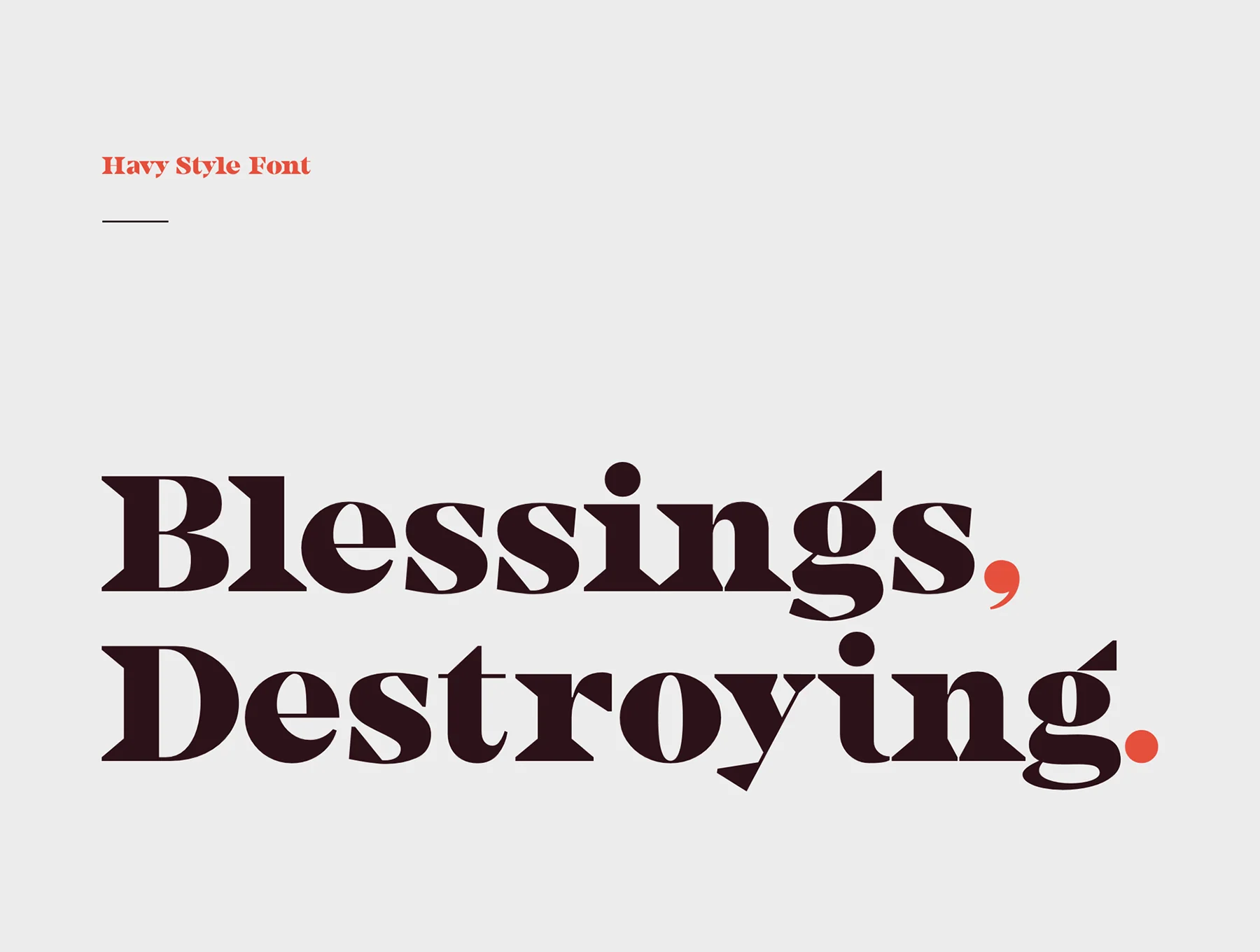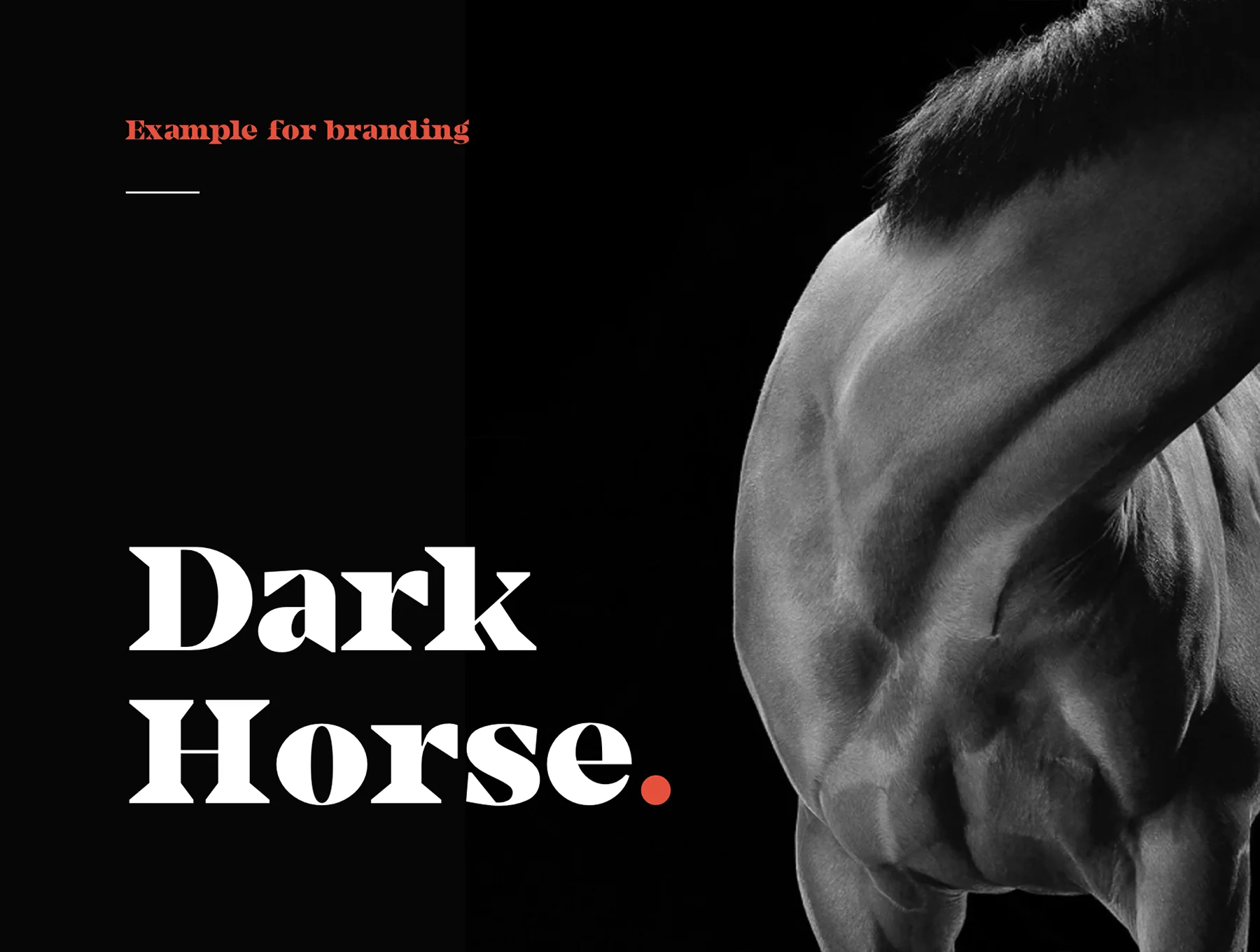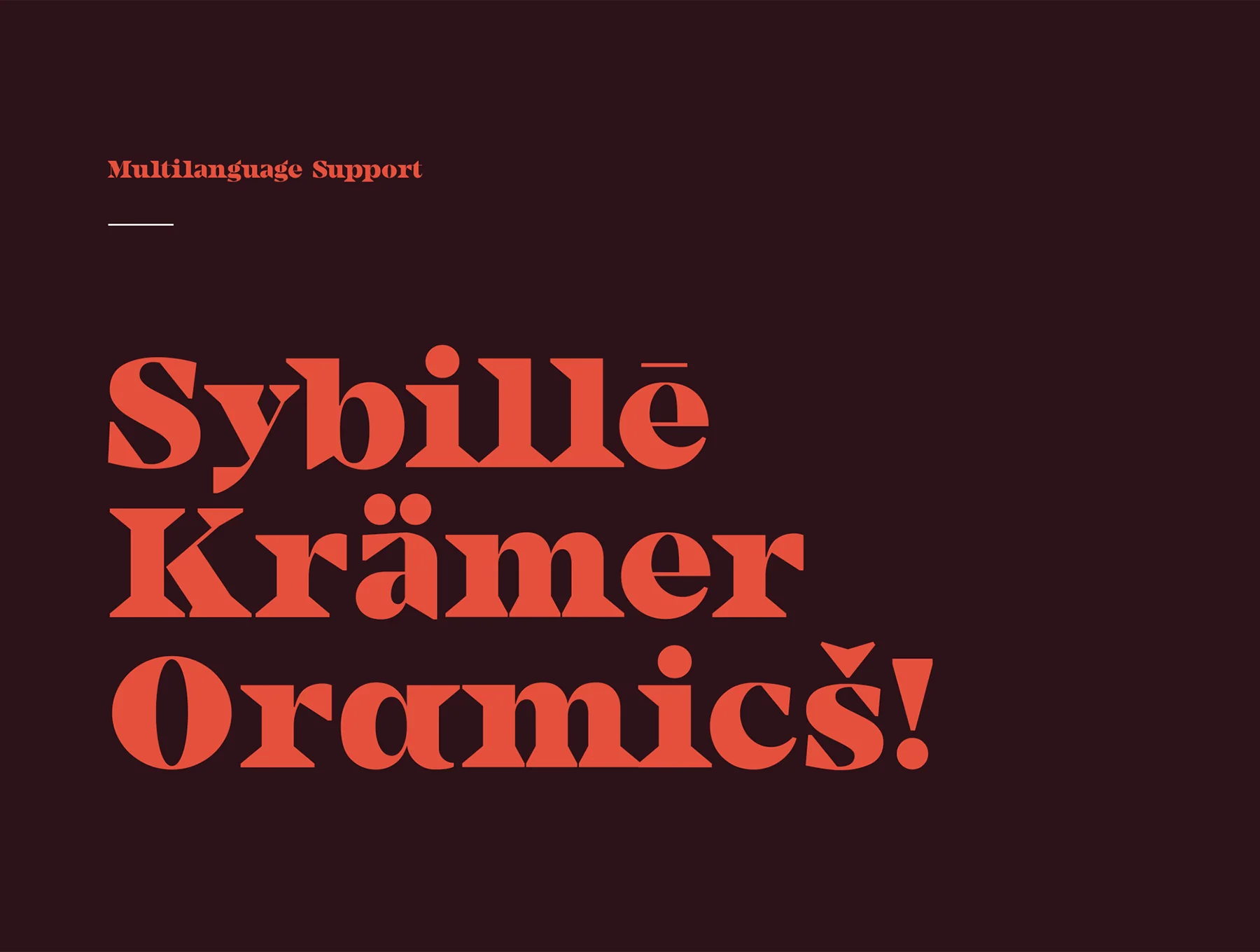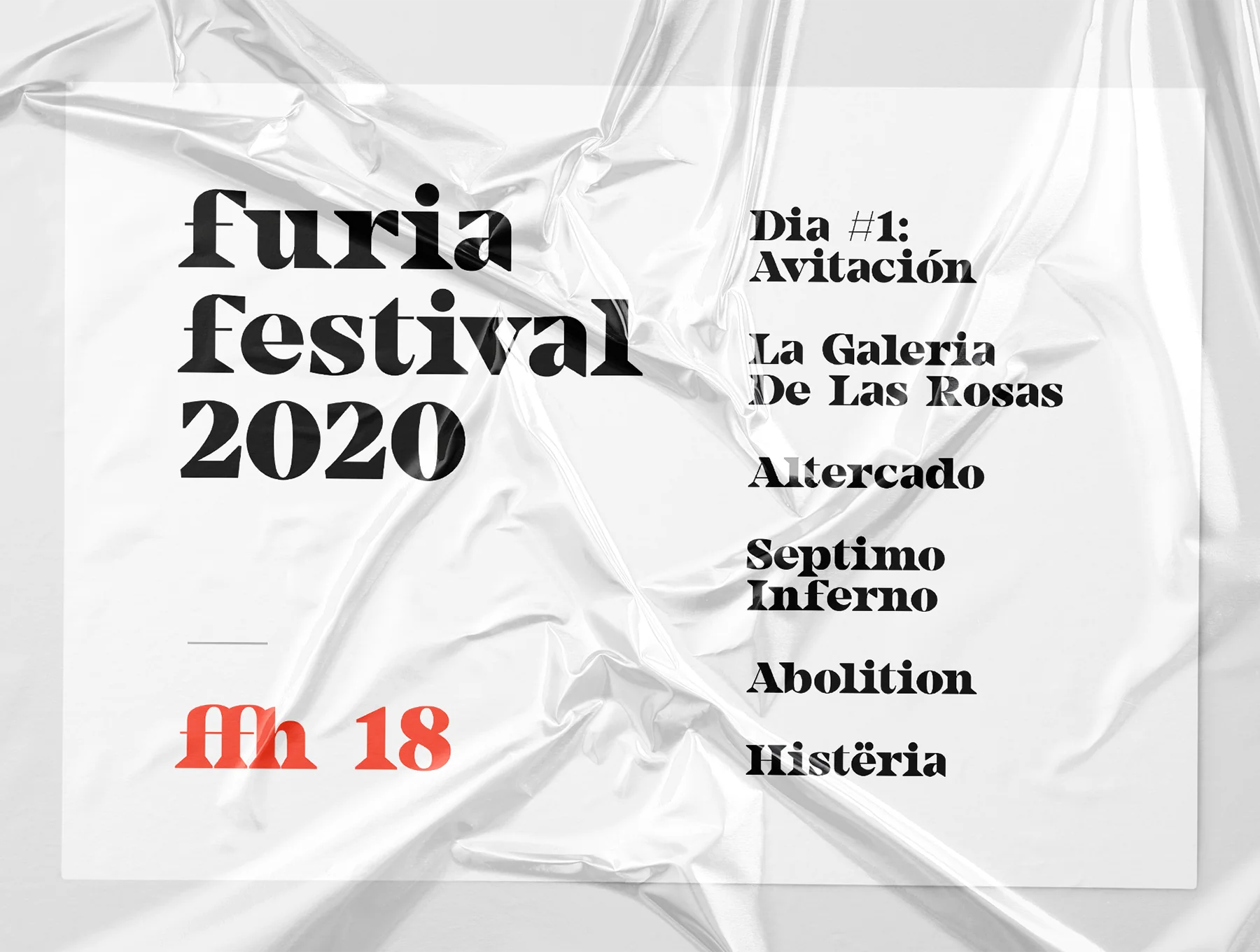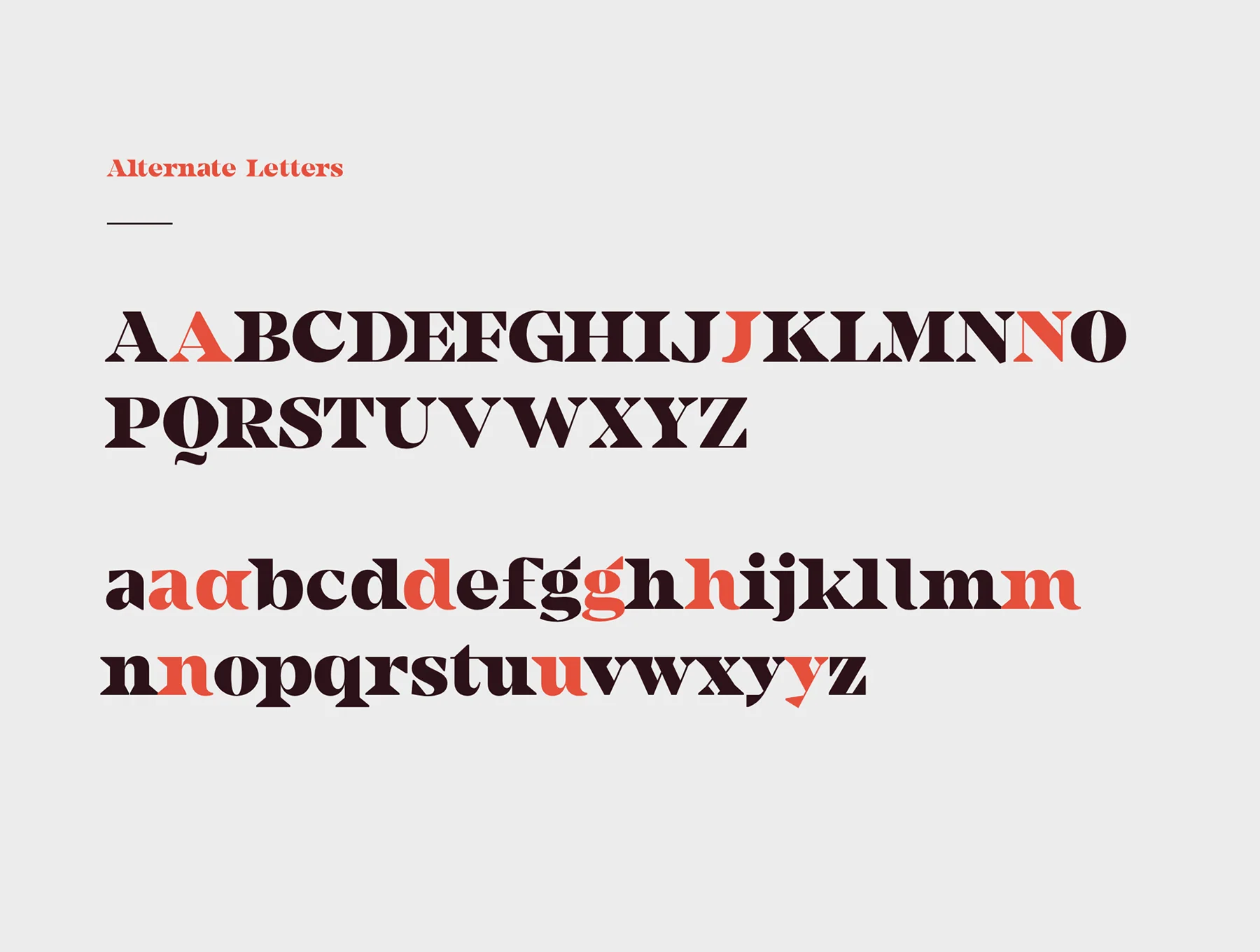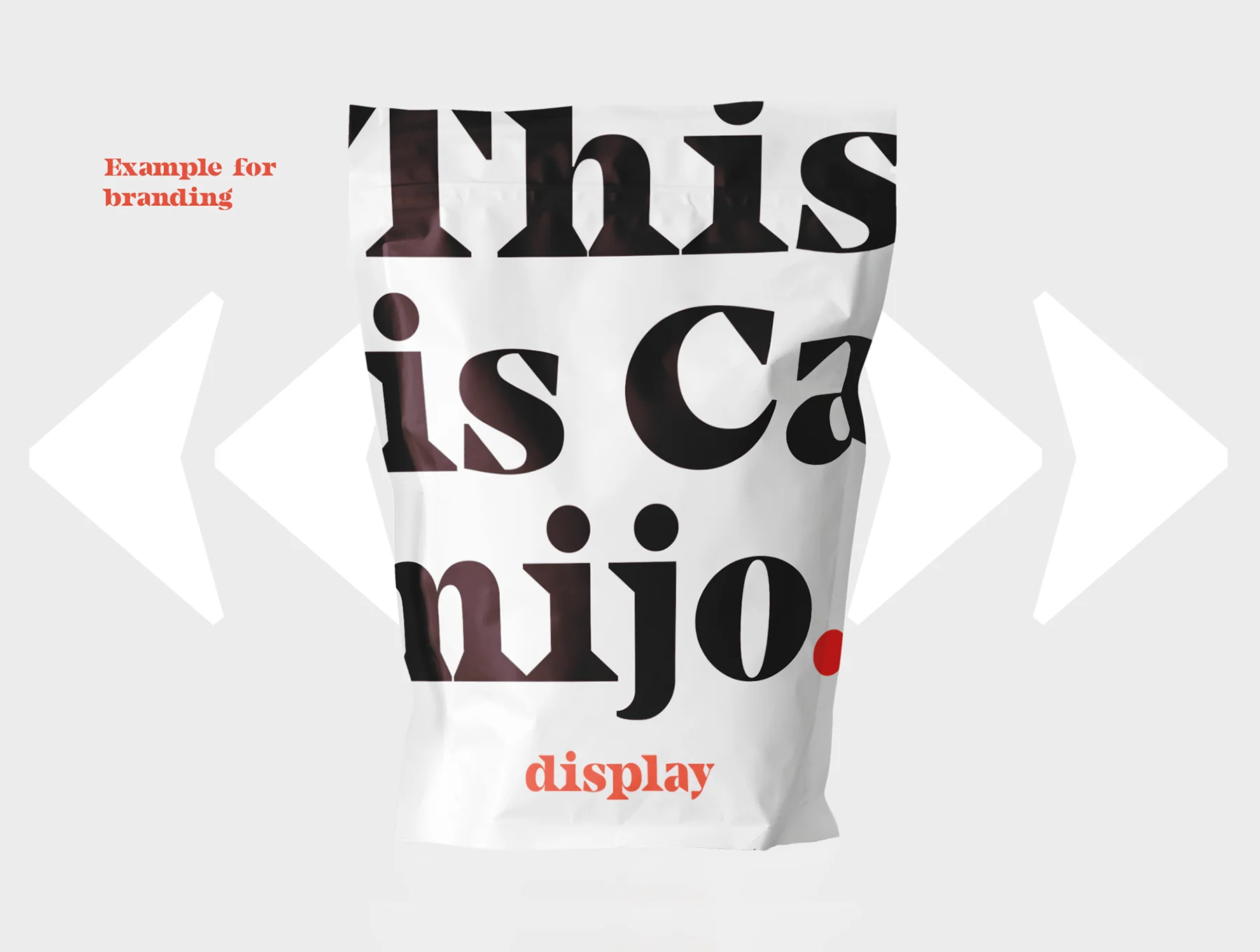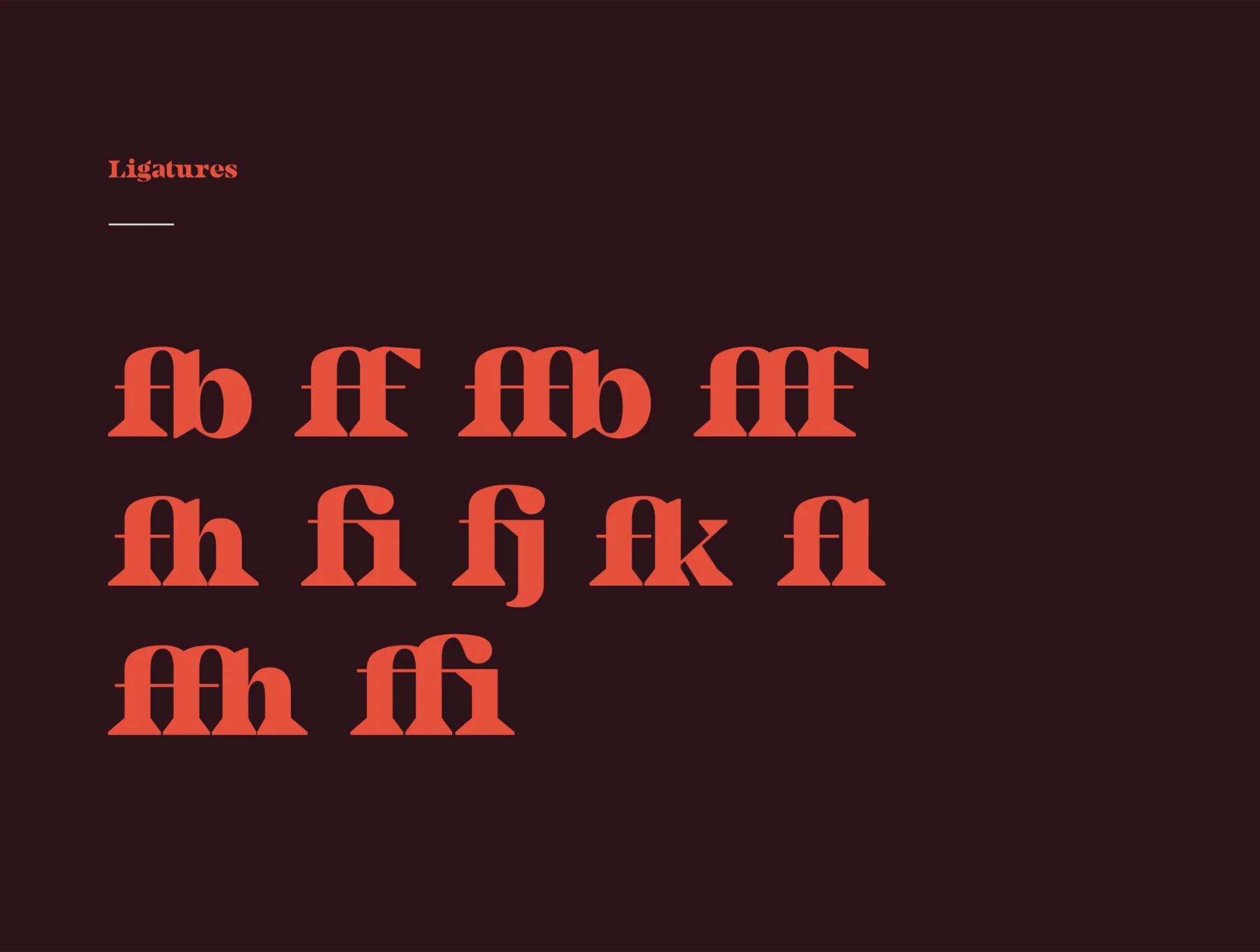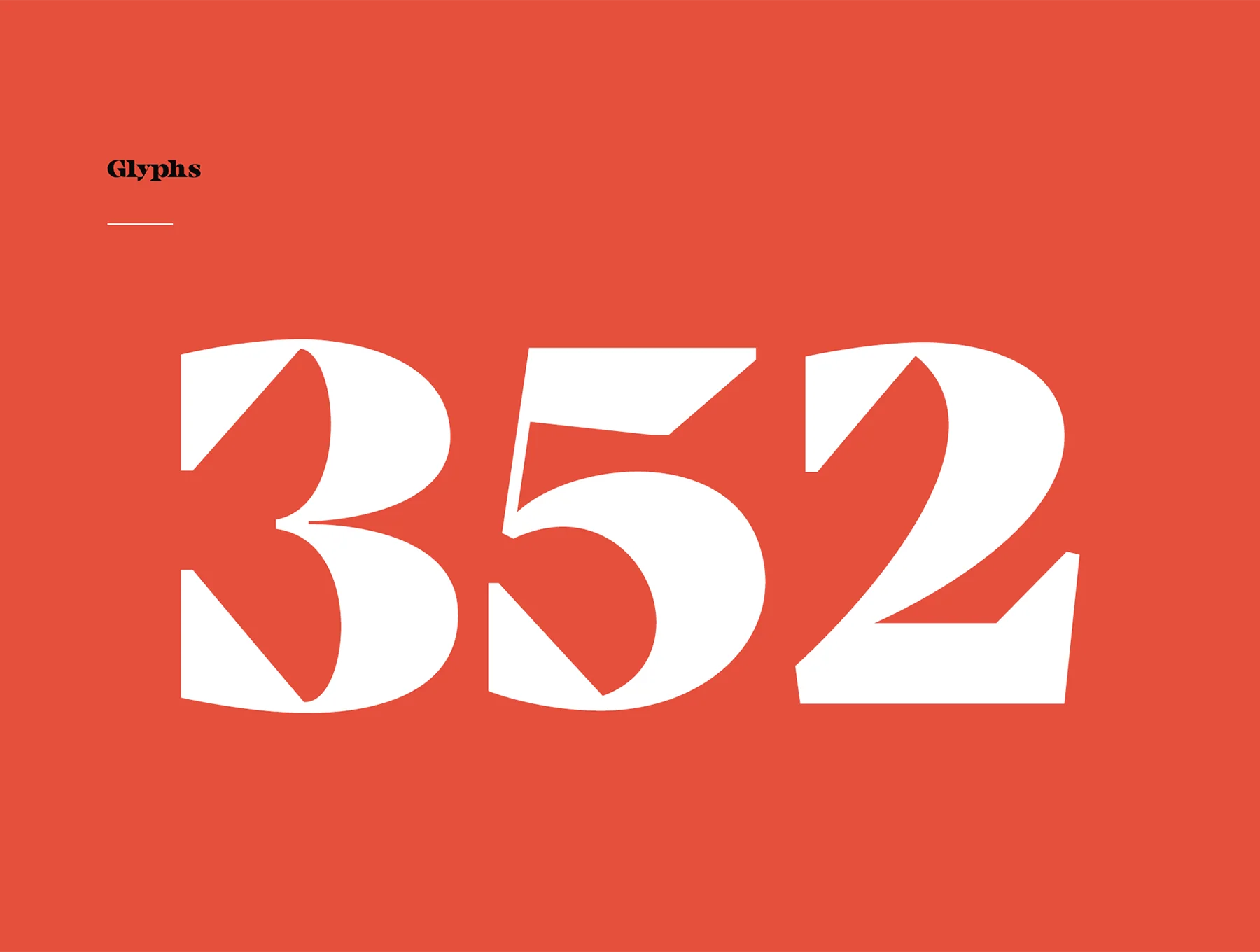
Camijo Display Serif Font
Camijo is a modern serif font with distinctive, sharply defined details.
Capital and small letterforms
Marks for punctuation
Numerical characters
Support for multiple languages
Camijo is a modern serif font with distinctive, well-defined details. Inspired by combining varied terminal styles, it creates a unique visual character with influences from Didone and contemporary type. It includes 352 characters and is crafted for branding, ads, editorial work, TV, and social media.